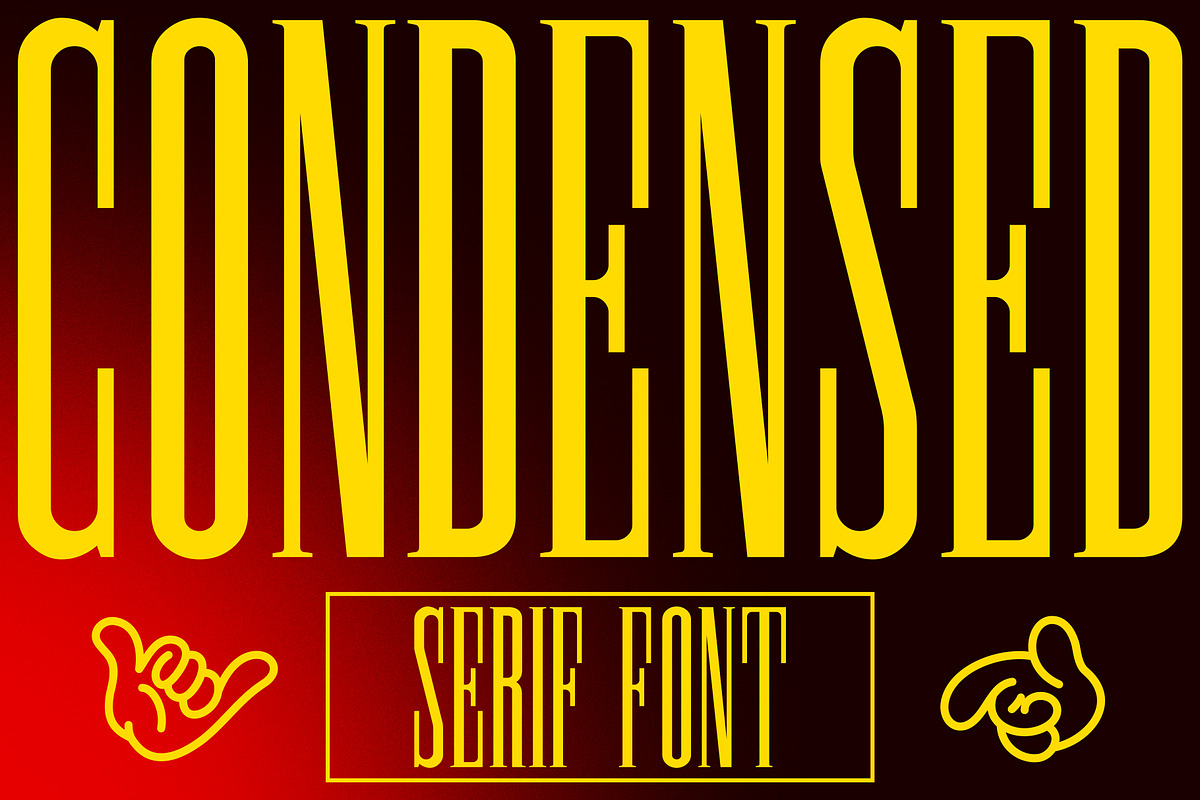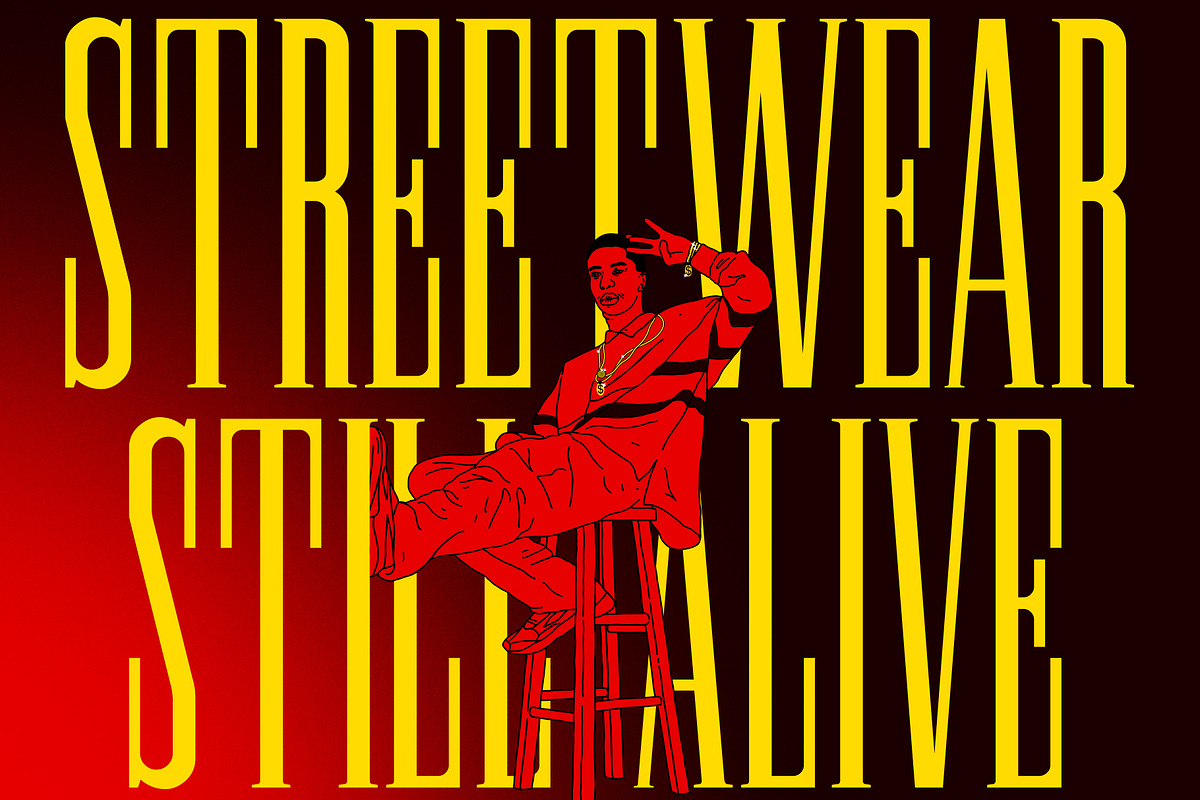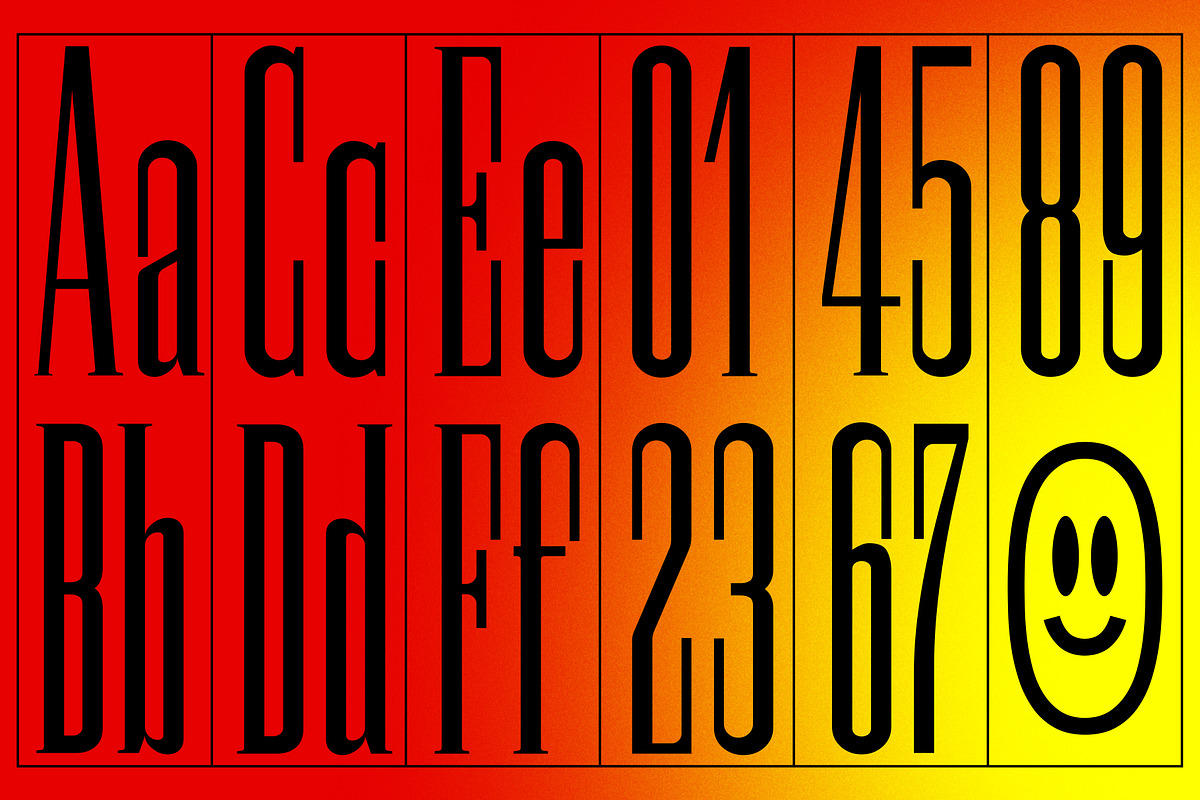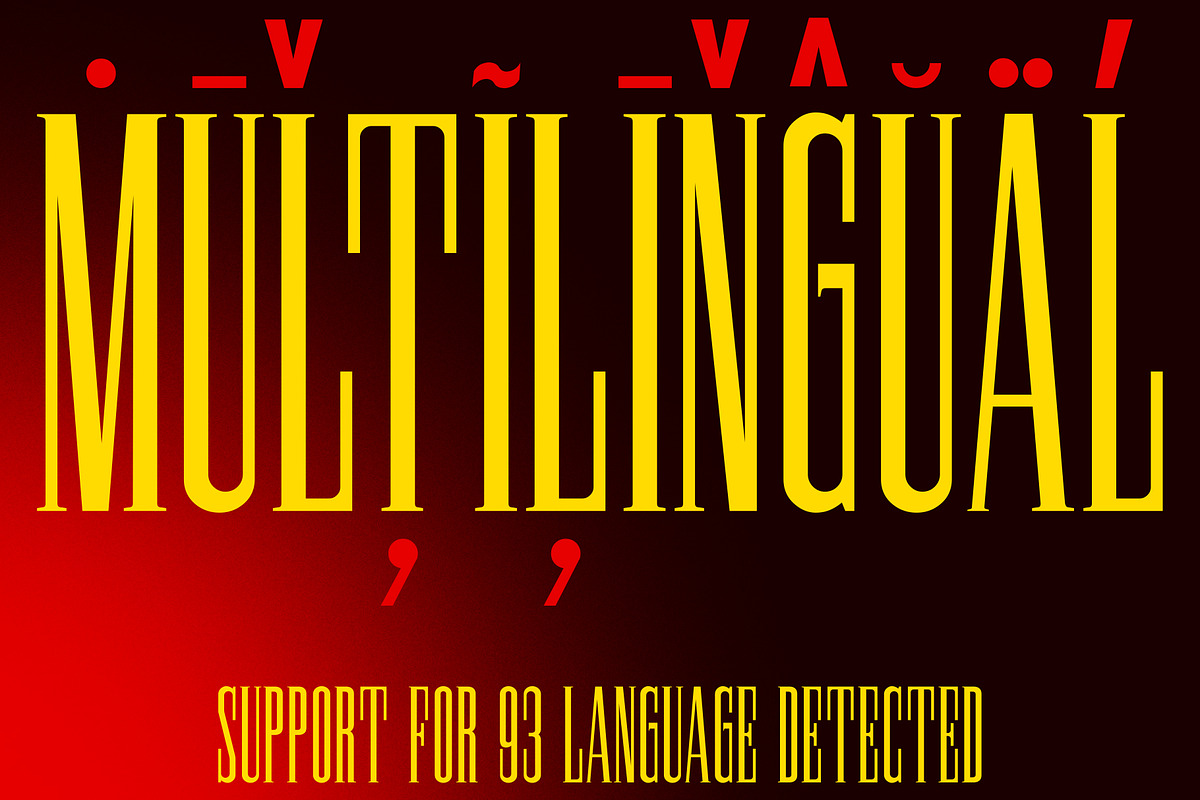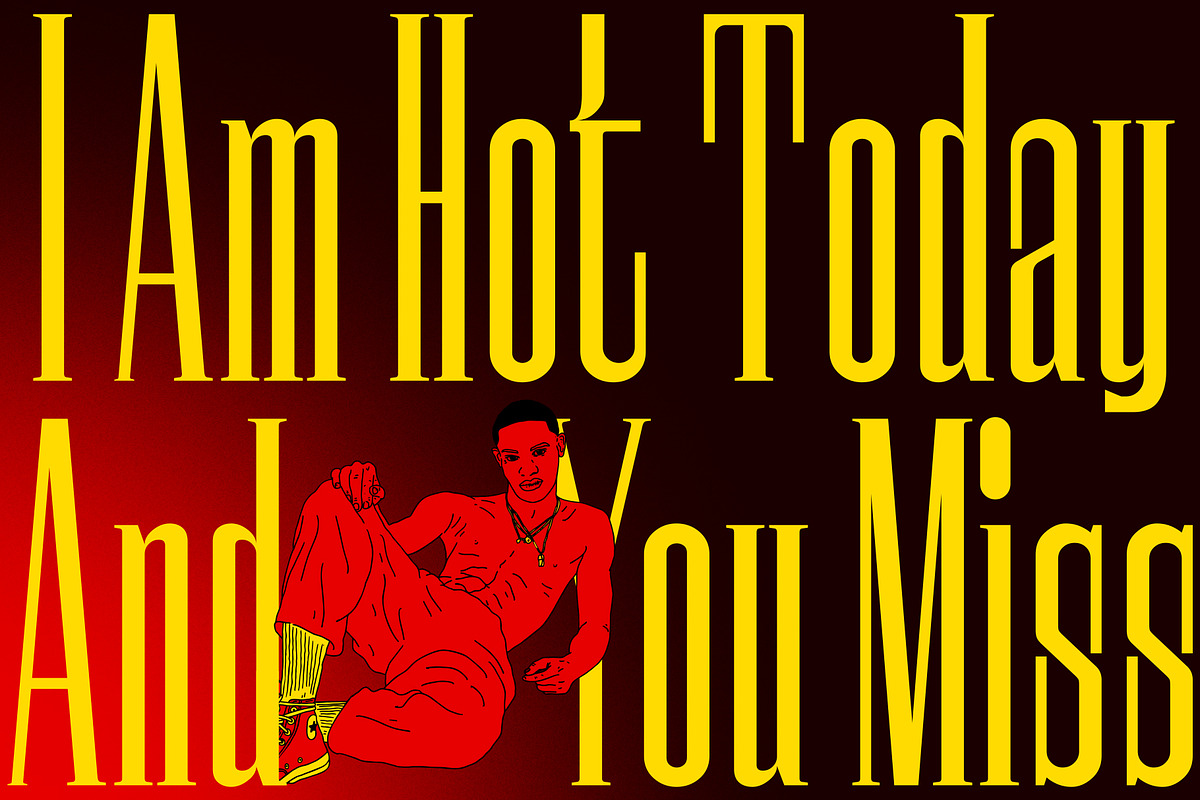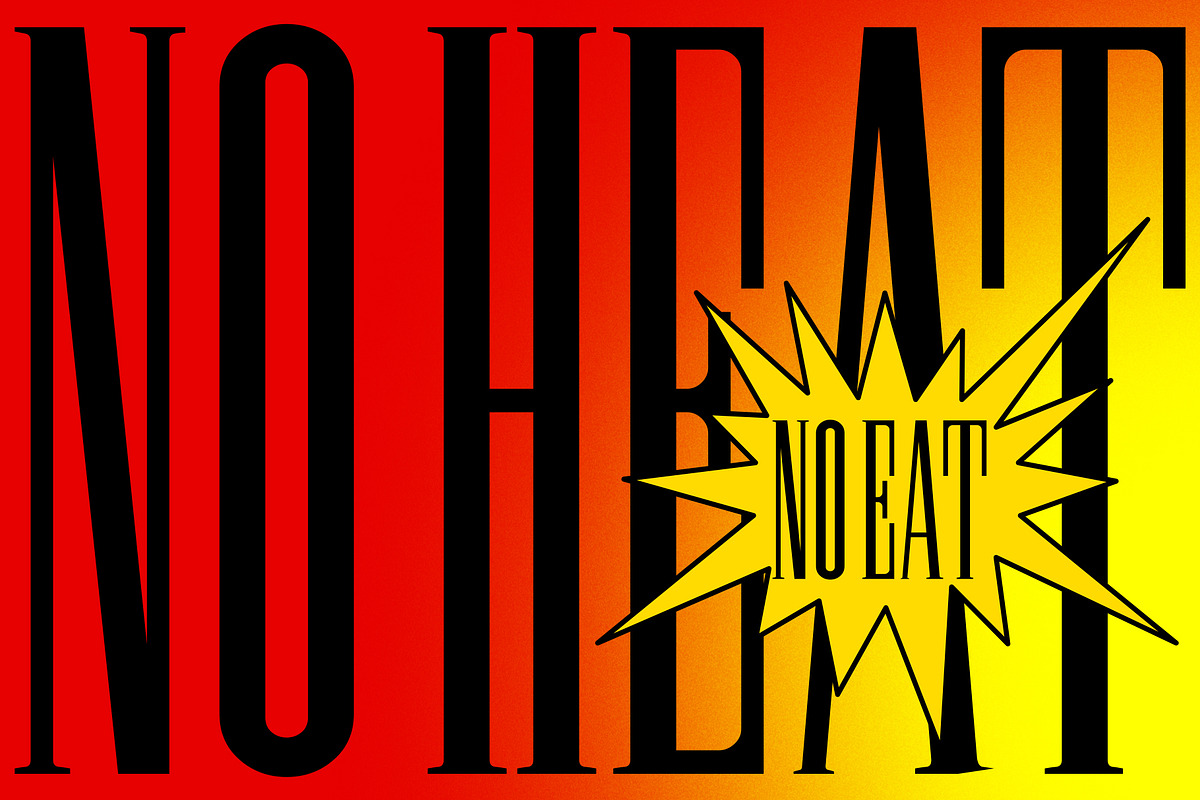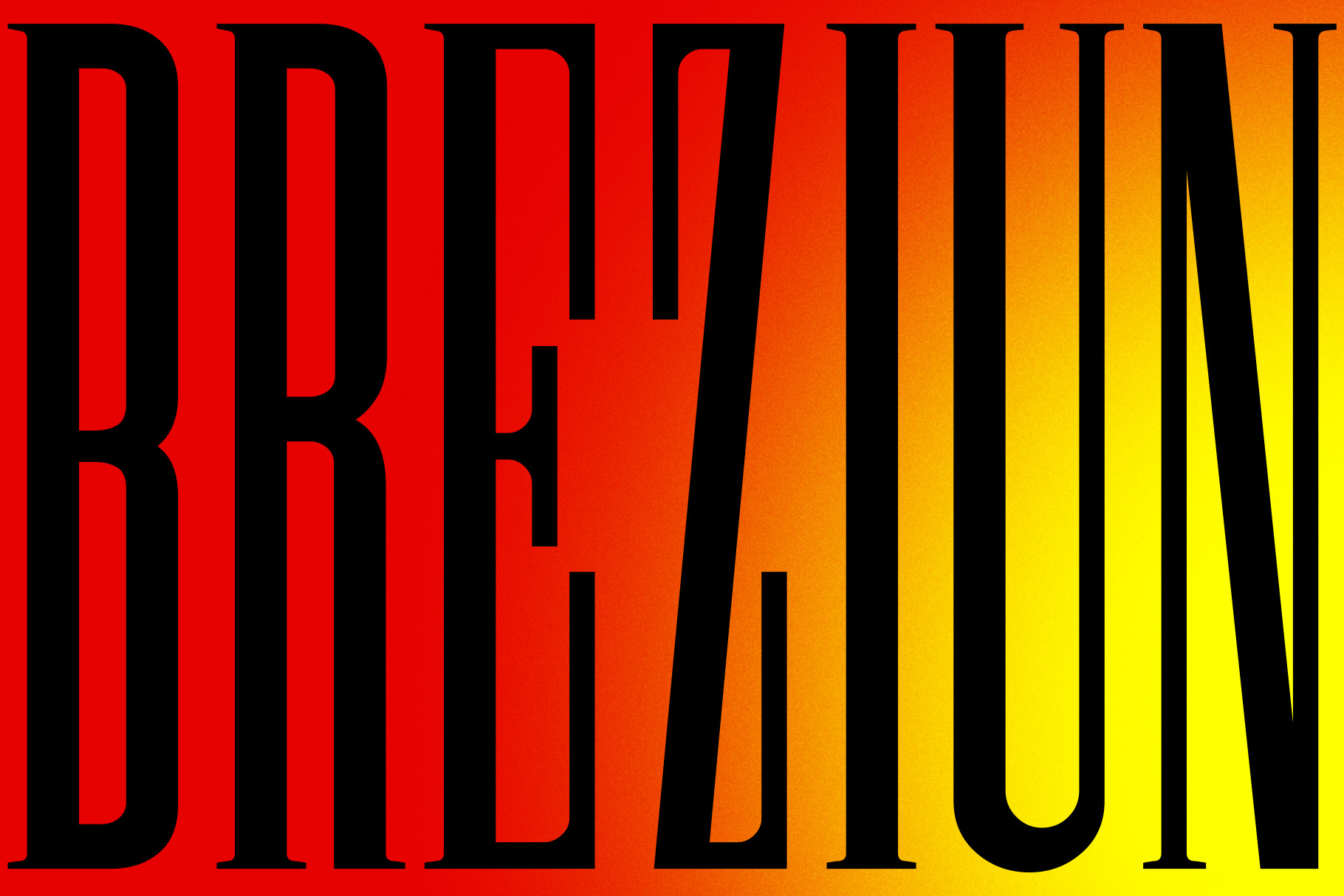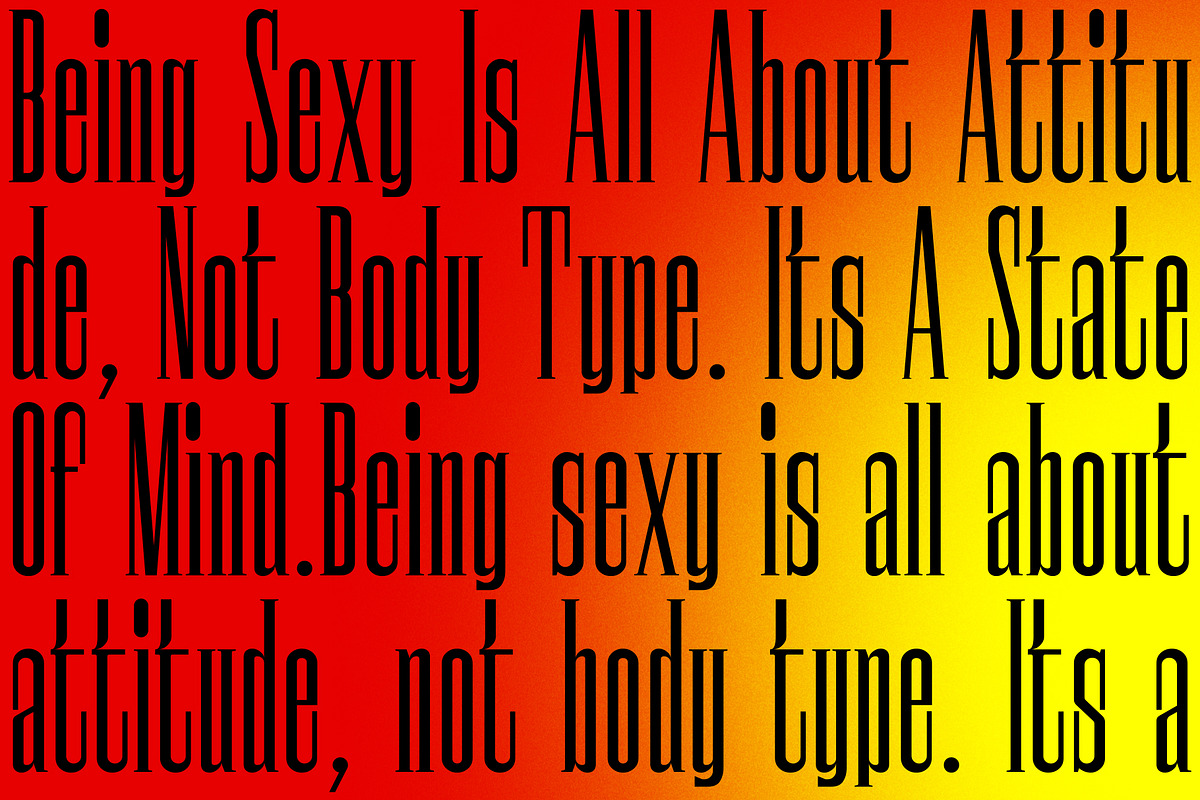
Breziun | Condensed Serif Font
Breziun is a condensed serif font that has a different character from the existing serif fonts, Breziun has a strong but soft character, with a warm and wild theme. Its weight is superior in posters, social media, headlines, magazine titles, clothing, large print formats - and wherever you want to see it. Inspired by the design styles that are currently popular, let's make your imagination come true with breziun!